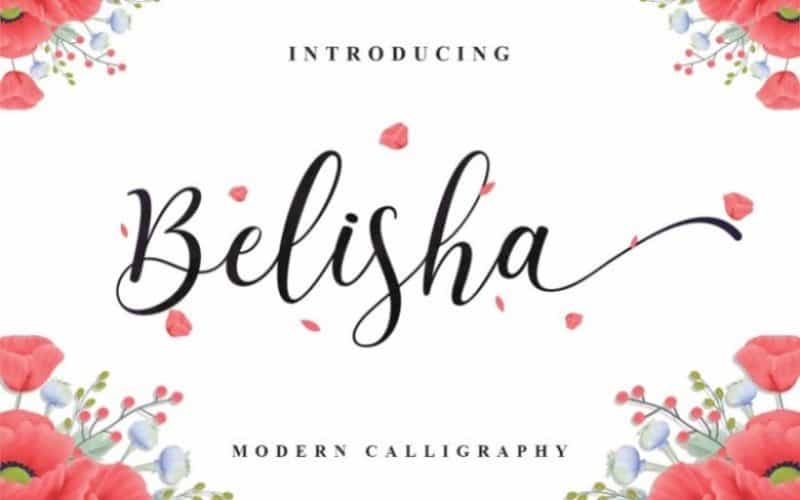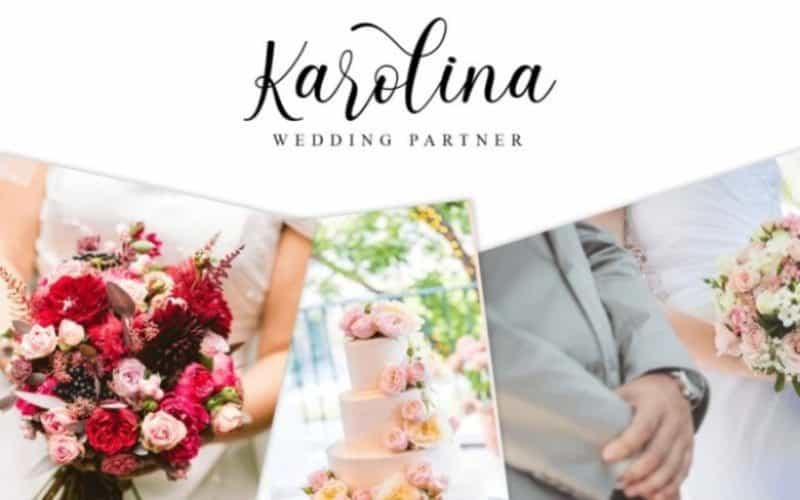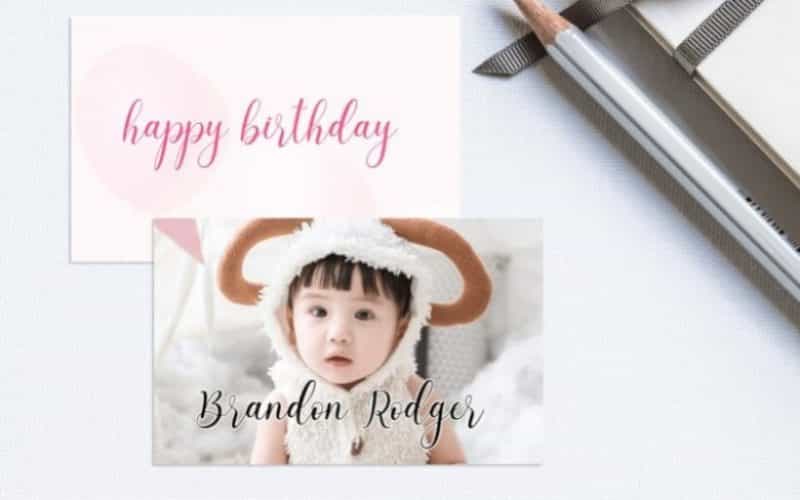
Belisha is the result of the classic typography and it has its own special style in any design project. This awesome script font is most appropriate for headlines of all sizes, as well as for text blocks that have both the maximum and minimum variations. Be it for web, print or moving images – Belisha will look superb.